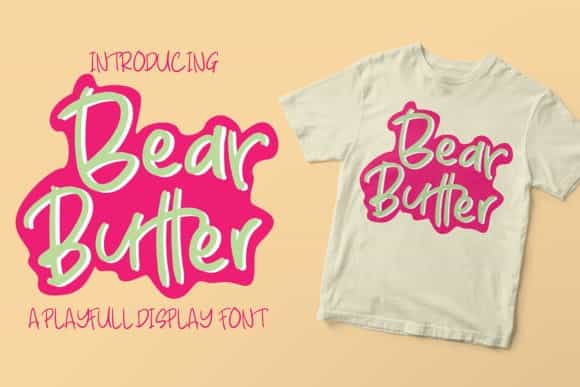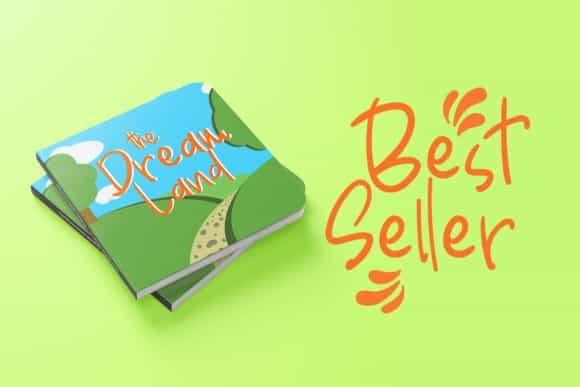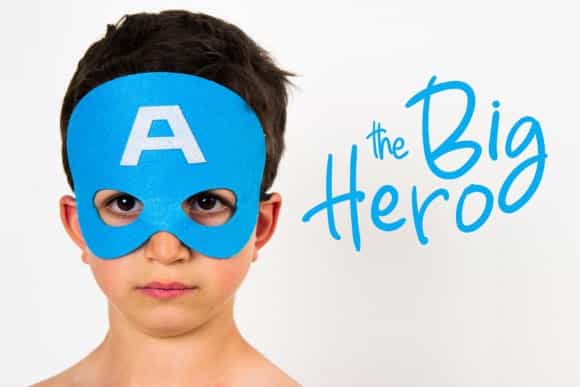
Discover Bear Butter Display Font, part of the Handwritten Display Cartoon collection—a versatile and unique font perfect for adding a personal touch to your projects. Download it for free and enjoy crafting designs with style, from invitations to social media posts. This font is available exclusively for personal use, giving you the freedom to create without limits. Unlock your creativity with Bear Butter Display Font today!
Bear Butter Font is a lively delicious font with additional street food graphics. It is a perfect fit for any culinary project such as street food, food truck, restaurant, cafe and branding material like logo, menu, packaging quotes flyer poster banners etc.